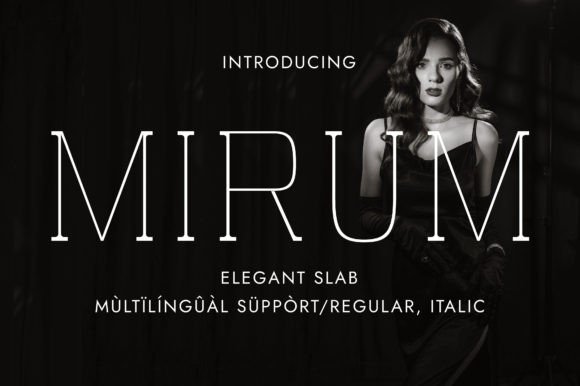
Step into the realm of sophistication and elegance with Mirum Font, a visionary creation by Minimalistartstudio. This stunning slab serif typeface invites you to explore a world of refined aesthetics and captivating designs. As its name suggests, Mirum unveils a captivating fusion of wonder and exquisite thin lines, harmonizing to unveil a font family of remarkable innovation.
With Mirum, the boundaries of creativity dissolve, making way for enchanting possibilities. Its unique glyphs construction empowers you to craft remarkable projects that demand a delicate touch, a clean and contemporary look, and an air of elegance that commands attention. Prepare to be mesmerized as you witness the finesse of every letterform, meticulously designed to leave an indelible impression.
Unleash the power of Mirum in your packaging designs, where luxury meets simplicity. Elevate your perfume designs with a touch of allure that speaks to the senses. Allow your fashion design presentations to blossom with an air of sophistication that captivates and inspires. As you delve into the world of Mirum, you'll discover the immense power hidden within each meticulously crafted glyph.
Imagine the allure of your designs adorned with Mirum's graceful curves and delicate strokes. Your packaging will exude an aura of exclusivity, inviting customers to embark on an extraordinary sensory journey. Your perfume designs will radiate a captivating elegance, evoking memories of cherished moments and sparking a cascade of emotions. And your fashion design presentations will transform into captivating narratives, where each garment tells a story of artistry and innovation.
With Mirum, you possess a font family that defies convention, transcending expectations and leaving a lasting impact. Its thin slab serif design becomes a canvas upon which your creativity can flourish, bringing forth designs that resonate with your audience on a profound level. Embrace the allure of Mirum, and unlock a realm of possibilities where art and commerce harmoniously intertwine.